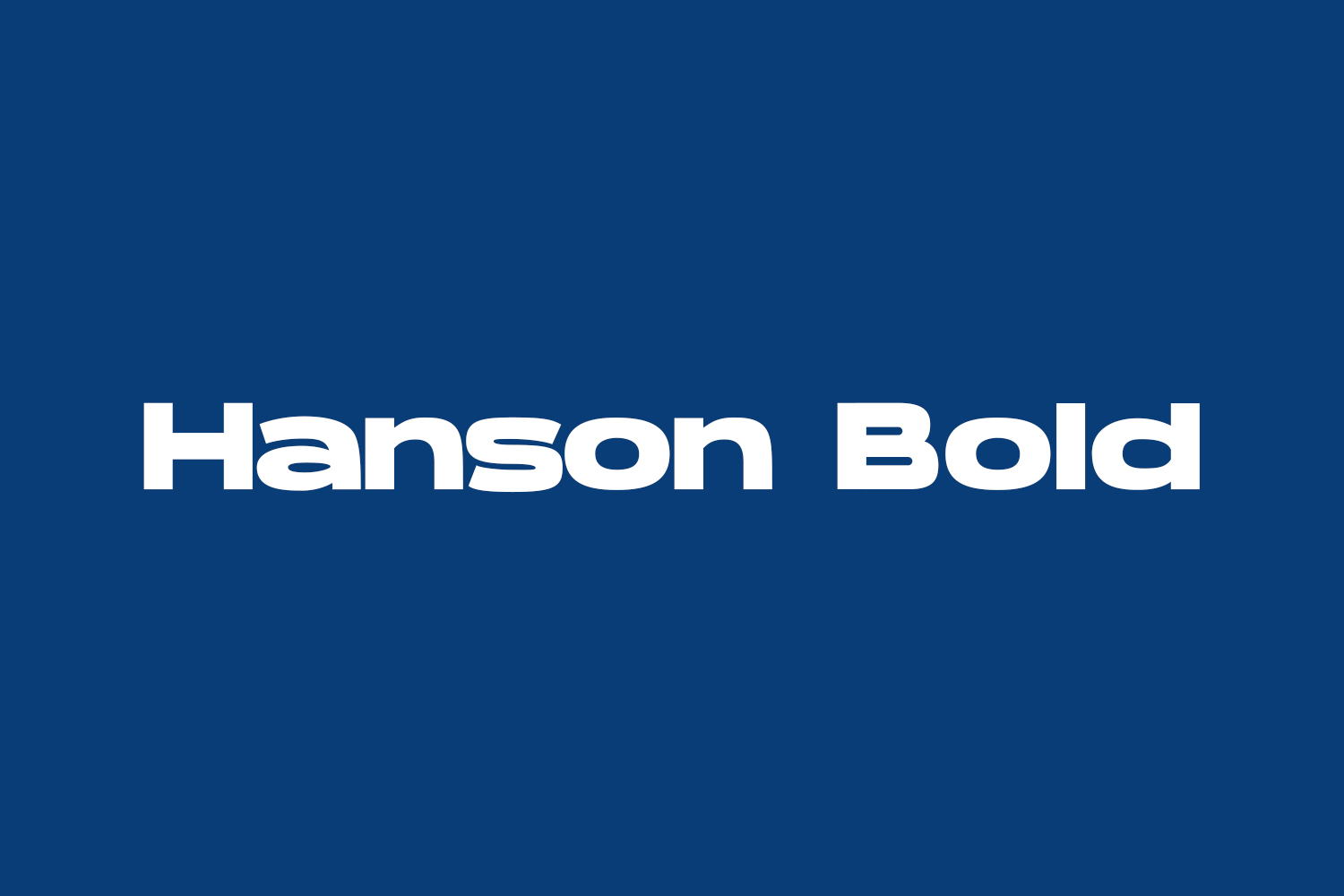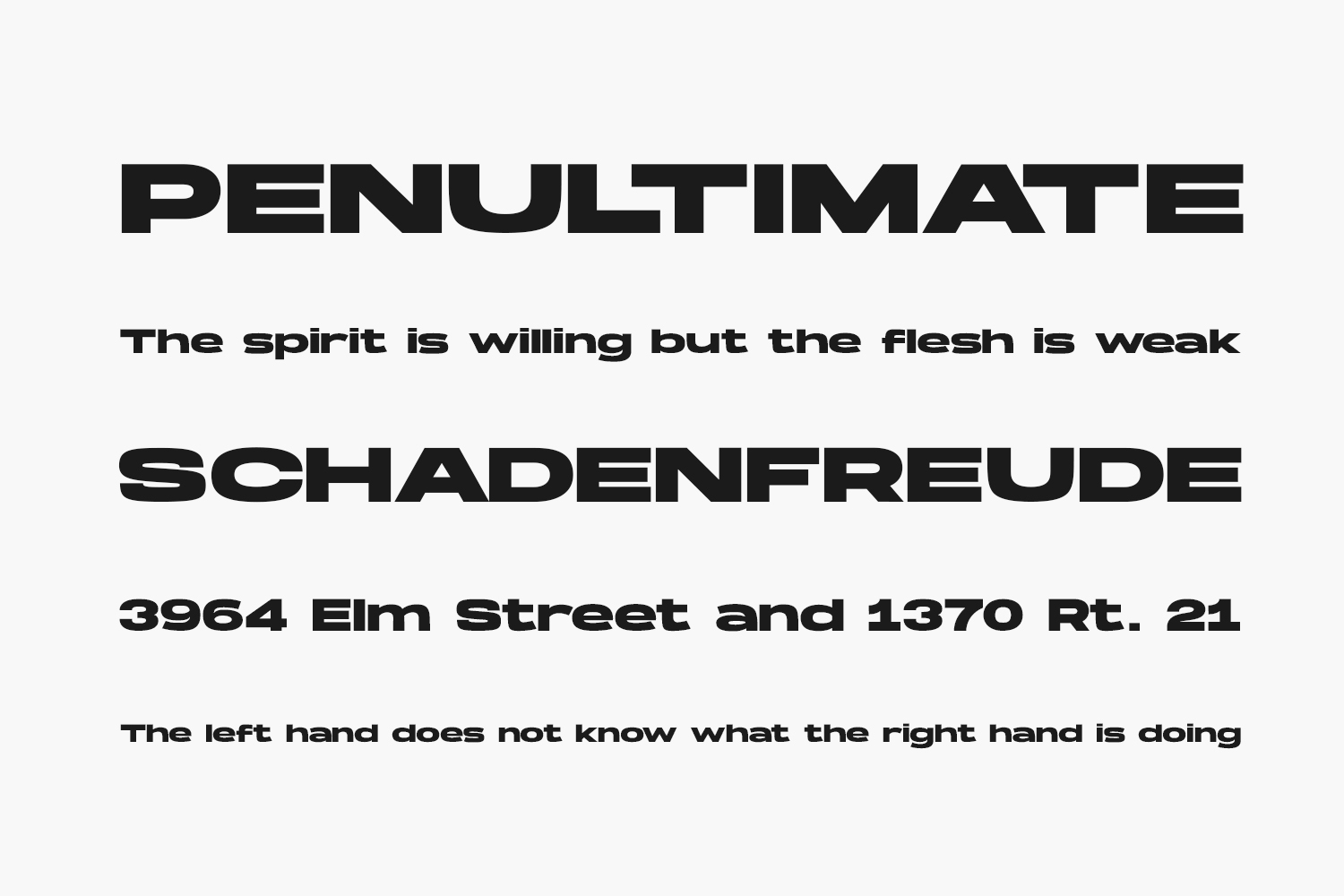
Hanson Bold Free Font characterized by its chunky and bold geometry with softened edges and dynamic shapes, is the ideal choice for adding a playful and quirky touch to your design projects. This free typeface perfectly blends geometric precision with a vibrant personality, making it suitable for a wide range of fun and creative designs. Download the font for free if you need it for personal use or purchase the full version for commercial use.
Designed by Hanson Method